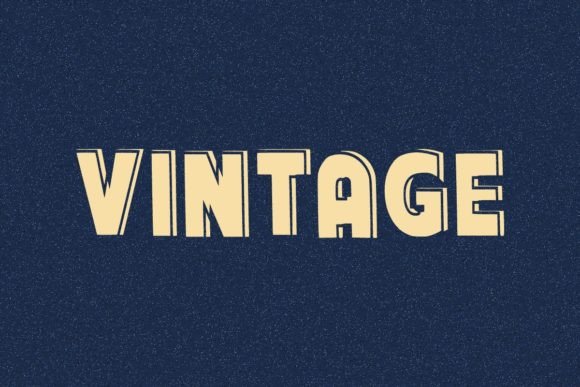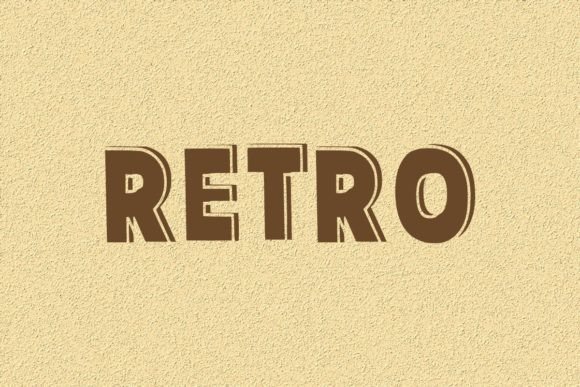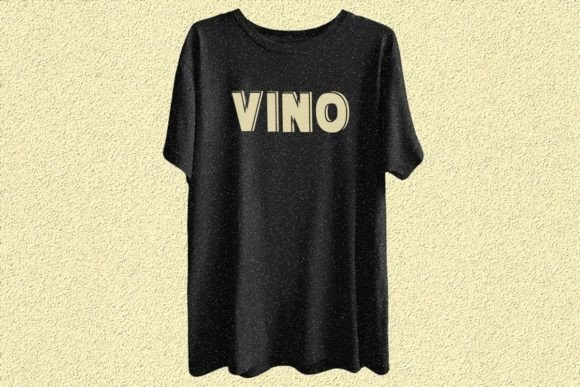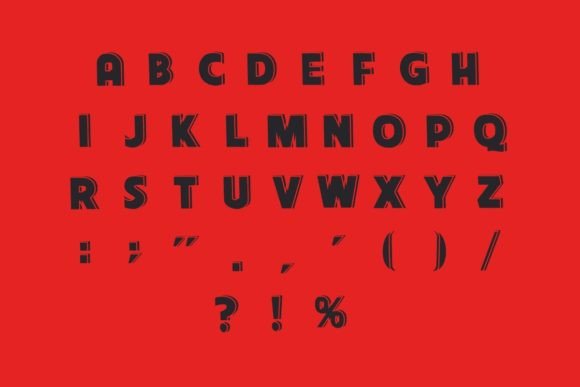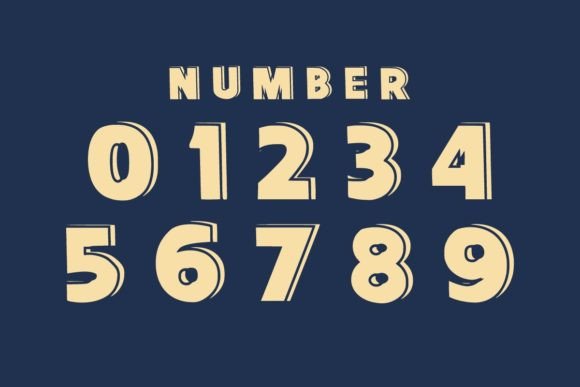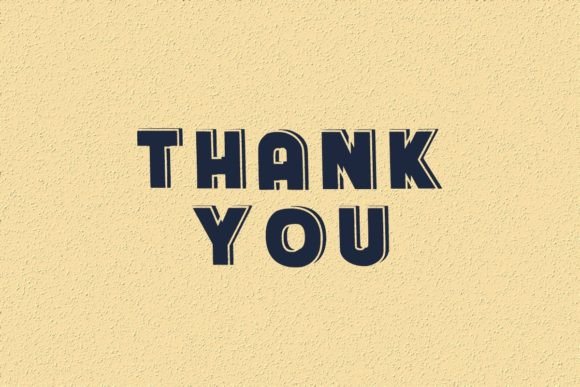
Dallas 1972 Font: A Timeless Classic for Your Creative Projects
Are you a designer or crafter looking for a font that exudes a sense of nostalgia and vintage charm? Look no further than the Dallas 1972 font. This classic, retro all-caps display font is perfect for adding a touch of retro flair to your projects. In this article, we’ll take a closer look at the Dallas 1972 font, its features, and how you can use it to elevate your creative projects.
What is Dallas 1972 Font?
Dallas 1972 is a vintage-inspired all-caps display font that is reminiscent of the iconic typography of the 1970s. With its bold, chunky letters and classic design, this font is sure to transport your projects back in time to an era of disco, bell-bottoms, and retro charm. Whether you’re working on a logo, branding project, or simply want to add a touch of nostalgia to your blog posts or social media graphics, the Dallas 1972 font is an excellent choice.
Key Features of Dallas 1972 Font
So, what makes the Dallas 1972 font so special? Here are some of its key features:
- All-caps design: The Dallas 1972 font is an all-caps display font, making it perfect for headlines, titles, and other applications where you want to make a bold statement.
- Vintage-inspired design: The font’s classic design is inspired by the typography of the 1970s, making it perfect for retro-themed projects.
- Chunky letters: The bold, chunky letters of the Dallas 1972 font make it easy to read and add a touch of drama to your projects.
- High-quality design: The font is carefully crafted to ensure that it looks great in any size or application.
How to Use Dallas 1972 Font in Your Projects
The Dallas 1972 font is incredibly versatile and can be used in a wide range of projects, including:
- Blog posts: Add a touch of retro charm to your blog posts with the Dallas 1972 font. Use it for headings, titles, or even entire paragraphs.
- Logos and branding: The Dallas 1972 font is perfect for creating logos, business cards, and other branding materials that need a vintage touch.
- Ads and marketing materials: Use the Dallas 1972 font to add a touch of nostalgia to your ads, flyers, and other marketing materials.
- Invitations and greeting cards: The Dallas 1972 font is perfect for creating invitations, greeting cards, and other paper crafts that need a retro touch.
- Planners and photo albums: Add a touch of vintage charm to your planners, photo albums, and other craft projects with the Dallas 1972 font.
- Decorations: Use the Dallas 1972 font to create retro-themed decorations, such as signs, banners, and wall art.
Why Choose Dallas 1972 Font?
So, why should you choose the Dallas 1972 font for your projects? Here are just a few reasons:
- Unique and distinctive: The Dallas 1972 font is a unique and distinctive font that will help your projects stand out from the crowd.
- Easy to read: The font’s bold, chunky letters make it easy to read, even at small sizes.
- Versatile: The Dallas 1972 font can be used in a wide range of projects, from logos and branding to blog posts and decorations.
- High-quality design: The font is carefully crafted to ensure that it looks great in any size or application.
In conclusion, the Dallas 1972 font is a timeless classic that is perfect for adding a touch of retro charm to your creative projects. With its bold, chunky letters and vintage-inspired design, this font is sure to transport your projects back in time to an era of disco, bell-bottoms, and retro charm. Whether you’re a designer, crafter, or simply someone who loves retro style, the Dallas 1972 font is an excellent choice. So why wait? Download the Dallas 1972 font today and start creating your own retro-themed projects!